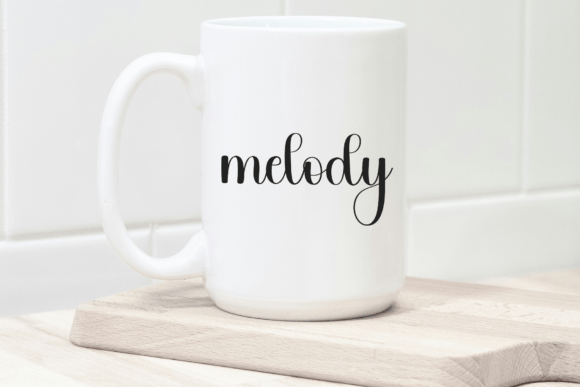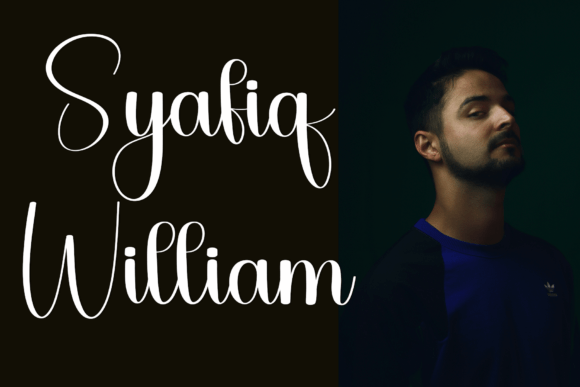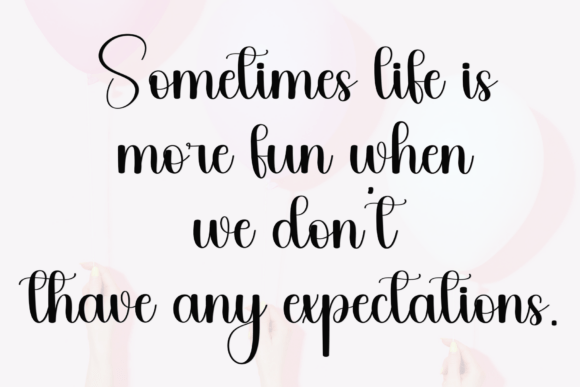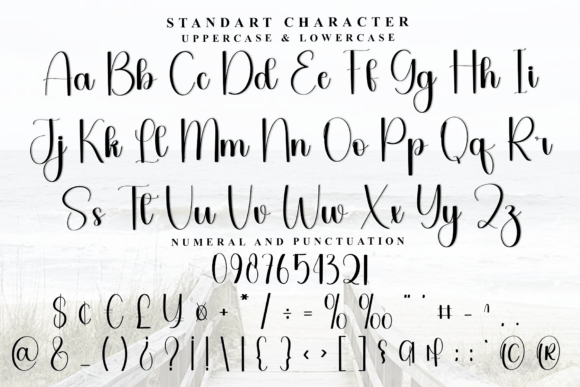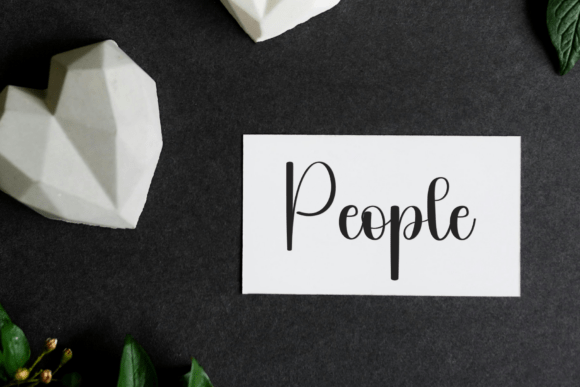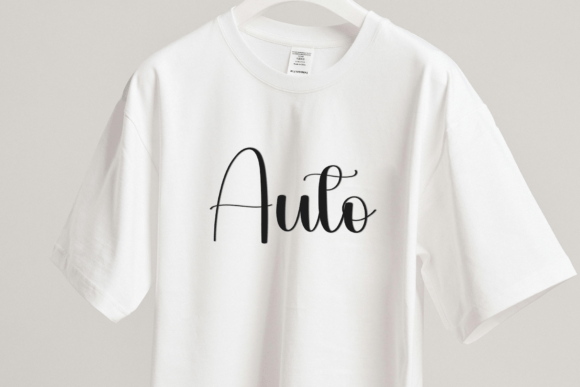
Introducing Handsome Font: Elevate Your Designs with a Unique Touch
In the world of typography, a font can make or break a design. It’s the foundation upon which creativity is built, and the right choice can elevate a project from ordinary to extraordinary. For designers and crafters seeking a font that combines beauty, uniqueness, and versatility, look no further than Handsome Font. This stunning font is designed to captivate audiences with its soft, distinctive strokes, making it perfect for a wide range of creative projects.
The Beauty of Handsome Font
Handsome Font is a masterpiece of typographic design, boasting a unique and eye-catching aesthetic that’s sure to turn heads. Its soft, rounded edges and distinctive strokes give it a special character that’s both meaningful and visually appealing. Whether you’re working on a design project, crafting a brand identity, or creating art, Handsome Font is the perfect choice to add a touch of elegance and sophistication.
One of the standout features of Handsome Font is its incredible versatility. With a wide range of characters, this font is perfect for various design projects, crafts, and creative works. From logos and branding to packaging, posters, and more, Handsome Font adapts seamlessly to any design style or theme. Its unique charm and character make it an excellent choice for designers seeking to create something truly memorable.
Ideal for Various Products
The natural font style of Handsome Font makes it an excellent choice for a wide range of products, from digital designs to print materials. Use it to create stunning:
- Posters, flyers, and brochures
- Digital graphics and social media assets
Whatever your design needs, Handsome Font is the perfect companion to help you create visually stunning and effective designs.
Why Choose Handsome Font?
With so many fonts available, why choose Handsome Font? Here are just a few compelling reasons:
- Unique and eye-catching design: Stand out from the crowd with a font that’s both beautiful and distinctive.
- Versatility: Use Handsome Font across various design projects, crafts, and creative works.
In conclusion, Handsome Font is a game-changer for designers and crafters seeking a unique, versatile, and beautiful font for their creative projects. Its distinctive strokes, soft edges, and wide range of characters make it the perfect choice for various design applications. With seamless compatibility and a natural font style, Handsome Font is ideal for a wide range of products and design needs. Upgrade your designs with Handsome Font today and discover a world of limitless creative possibilities!